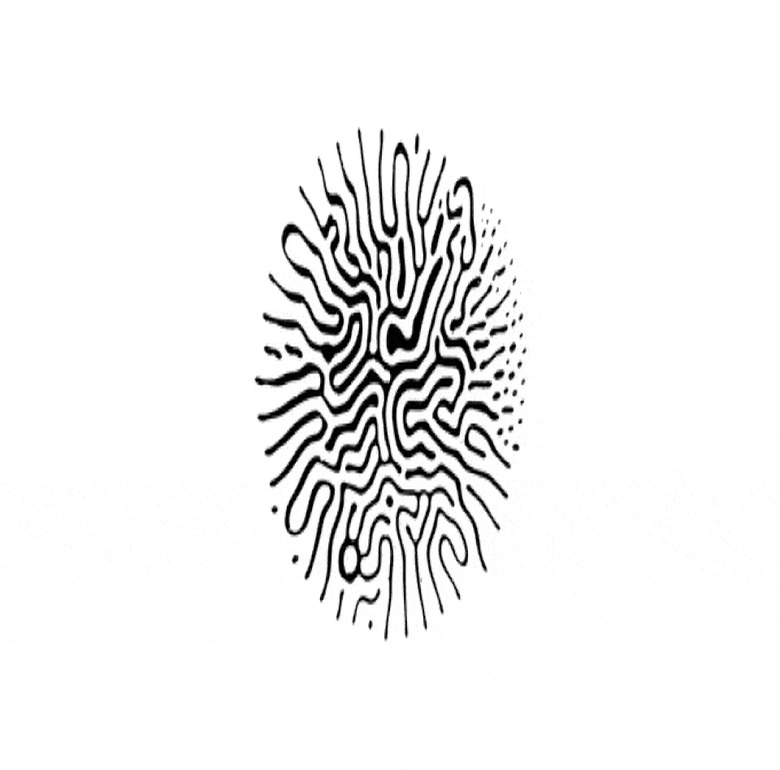
Ferrofluid 'font' produces trippy, one-of-a-kind art
You may have seen ferrofluid (aka magnetic ink) used for clever science demonstrations in school, but it might just get a much cooler application before long. Linden Gledhill and Craig Ward have developed Fe2O3 Glyphs, wild-looking characters created by putting a ferrofluid between glass plates and subjecting it to spinning magnetic fields. The result is a sort of anti-font — while the "letters" look like they could be part of an alien language, they're so unique that you'd likely never produce the same effect twice.